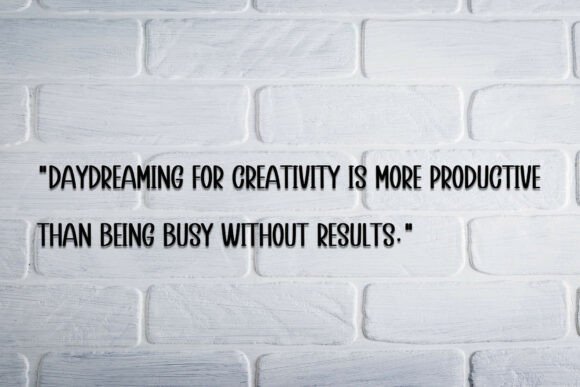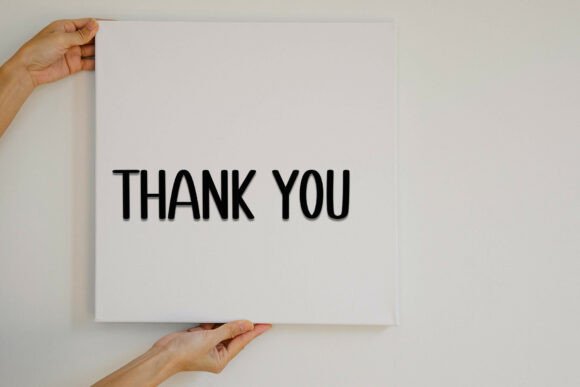
Introduction to Labuburainbow Font
You’ve spent hours perfecting your design, pouring your heart and soul into every detail, only to realize the final touch is missing – a font that captures the essence of your creative vision. That’s where the Labuburainbow Font comes in, a playful handwritten display typeface that brings a lively, casual charm to any design. Its tall, rounded letterforms with smooth curves and consistent stroke weight create a friendly and approachable look, while its slightly elongated shapes add a whimsical, modern edge.
Whether you’re working on a high-quality branding project or a social media graphic, the Labuburainbow Font adapts effortlessly to a variety of creative projects. With its perfect balance of personality and readability, this font makes every design feel fun and inviting. Plus, with its transparent background, it’s a versatile design resource that’s easy to use and integrate into your work.
Key Features of Labuburainbow Font
- Transparent background, allowing for seamless integration into designs and graphics.
- Designed with a high level of detail, resulting in a crisp and clear visual representation at resolutions up to 300 DPI.
- Perfect for use in digital design projects, such as logos, icons, and graphics, due to its vibrant and eye-catching aesthetic.
- Size: includes multiple font sizes, ranging from 12pt to 72pt, providing flexibility for various design applications.
Honest Review: Labuburainbow Font
As a designer, I’m always on the lookout for high-quality design resources to elevate my creative projects. I recently stumbled upon the Labuburainbow Font, and I’m excited to share my honest review.
- ✨ Vibrant Color Palette: The Labuburainbow Font offers a wide range of bright and playful colors that are perfect for adding a pop of fun to any design.
- ✨ Transparent Background: The font’s transparent background makes it easy to customize and combine with other design elements.
- ⚠️ Limited Font Variations: While the font offers a range of colors, it’s limited in terms of font variations, which may not be ideal for complex design projects.
- ⚠️ Not Ideal for Formal Designs: Due to its playful and vibrant nature, the Labuburainbow Font may not be suitable for formal or professional designs.
Overall, I’m impressed with the Labuburainbow Font’s potential to add a creative touch to design projects. While it has some limitations, it’s a great resource for designers looking for a fun and eye-catching font. I’d definitely recommend it for casual and creative projects.
Tips for Getting the Most Out of Labuburainbow Font
Use the Labuburainbow Font on a transparent background to create a clean and modern design. Experiment with different font sizes and styles to add visual interest to your design project.
The Labuburainbow Font is perfect for creating eye-catching graphics, logos, and branding materials. It’s also great for adding a touch of creativity to your presentations, documents, and social media posts.